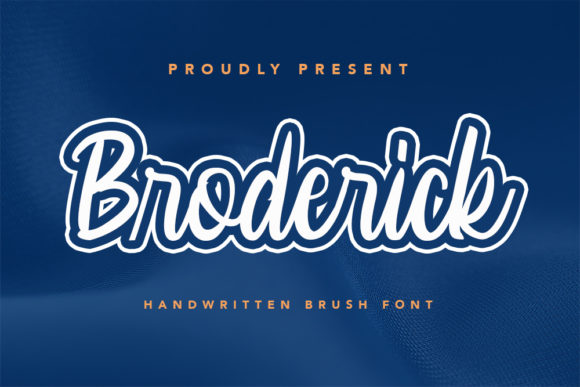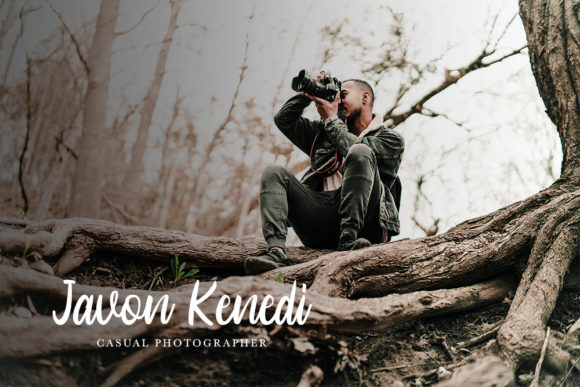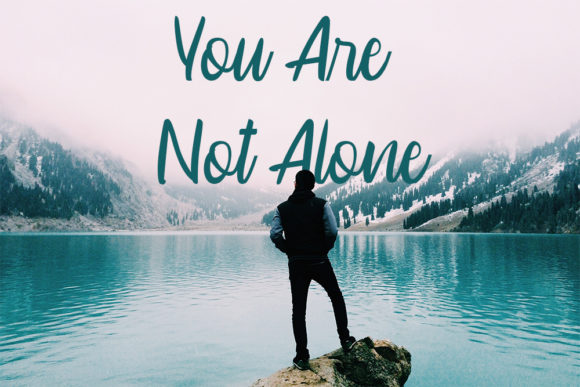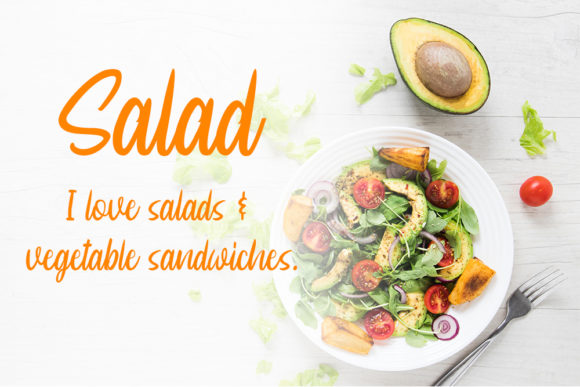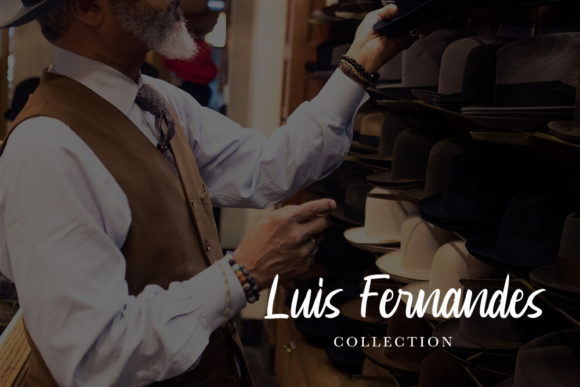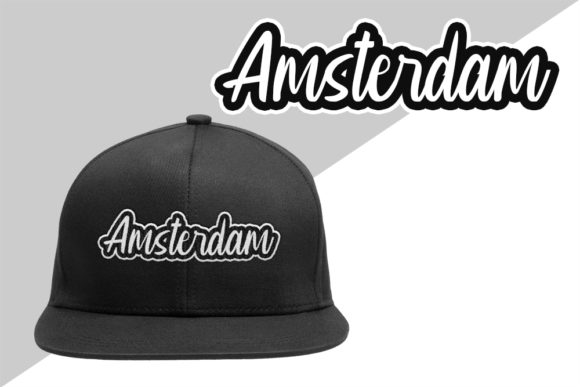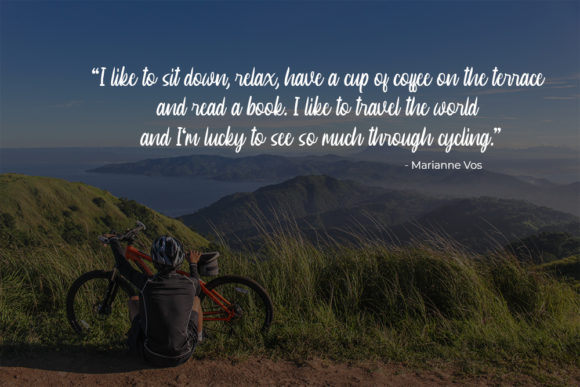
Broderick Font
About Broderick Font
Broderick is inspired by classic typography and brings its own unique style to any design project. This fantastic script font is best suited for headlines of all sizes, as well as for blocks of text that have both maximum and minimum variations. Whether it’s for web, print, moving images or anything else – Broderick will look spectacular.